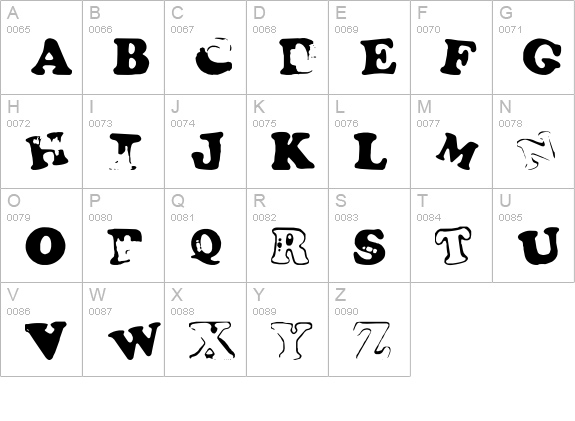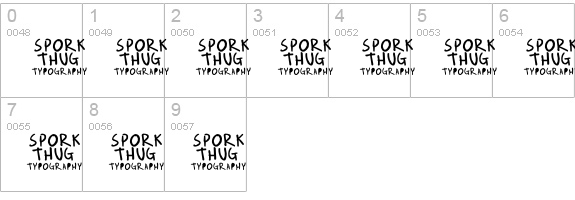
The Fridge Magnets font is a whimsical and playful typeface that will add a touch of fun to your designs. With its bold and rounded letters resembling classic fridge magnets, this font is perfect for creating eye-catching headlines, posters, and social media graphics. The Fridge Magnets font is freely available to download at FontsMarket.com, making it accessible to designers and creators looking to add a unique and charming element to their projects. Add a touch of nostalgia and creativity to your designs with the Fridge Magnets font today!